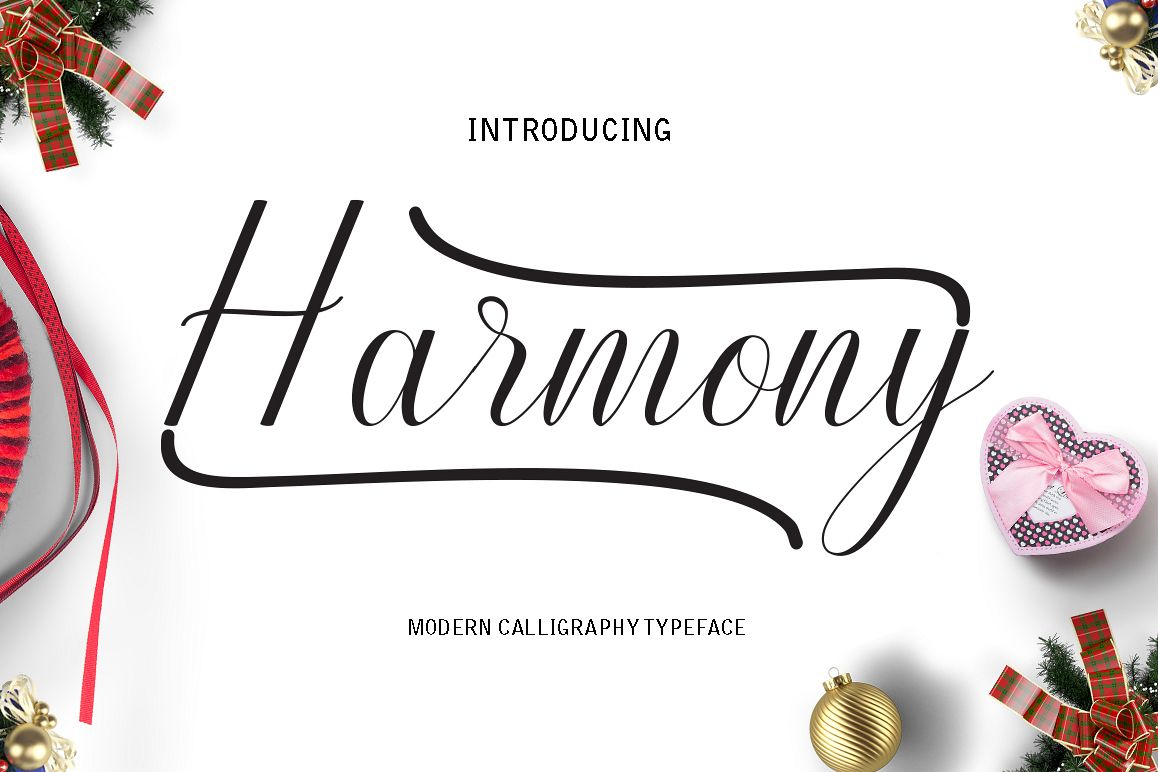
Harmony
Harmony is a font that made the hand by having the character up and down like a dancer. Harmony has a very unique style of calligraphy, it is very suitable for use in the work of modern design.
The harmony of this fonts is:
Standart ligatures
Stylistic Alternates
Can be used for various purposes.such as headings, logos, wedding invitation, t-shirt, letterhead, lable, news, posters, badges etc. To enable the OpenType Stylistic alternates, you need a program that supports OpenType features such as Adobe Illustrator CS, Adobe Indesign & CorelDraw X6-X7.a font that made the hand by having the character up and down like a dancer. harmony has a very unique style of calligraphy, it is very suitable for use in the work of modern design.